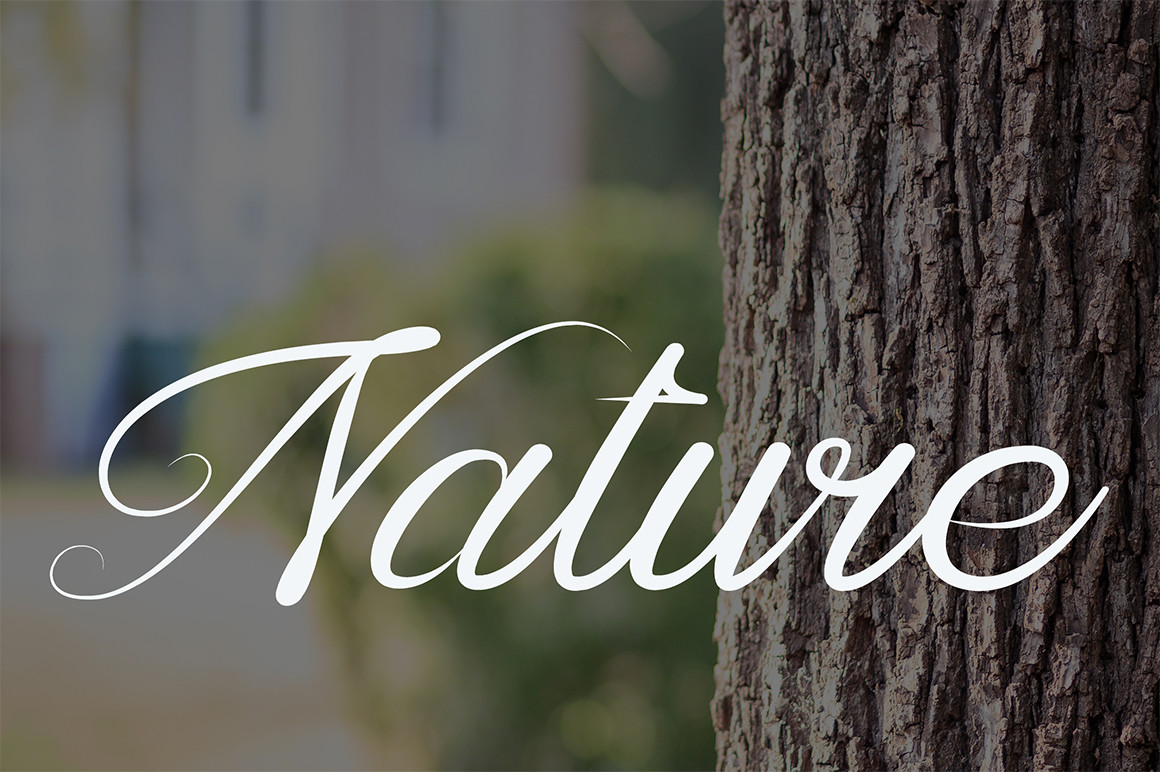
Luxury is a well-balanced handwritten font. It is the best choice for creating eye catching logos, branding and quotes. Every letter has a unique and beautiful touch, which will make your design come alive!